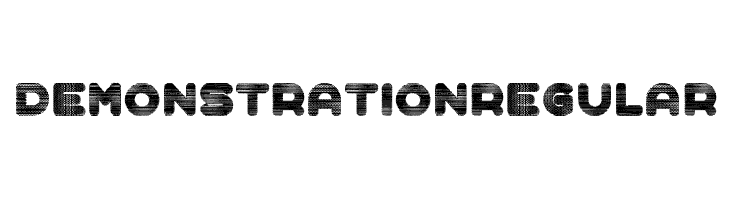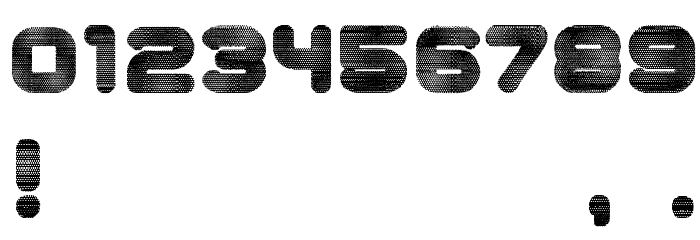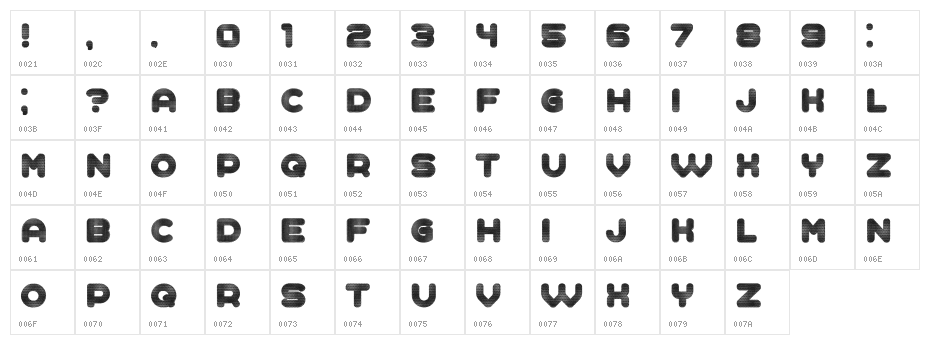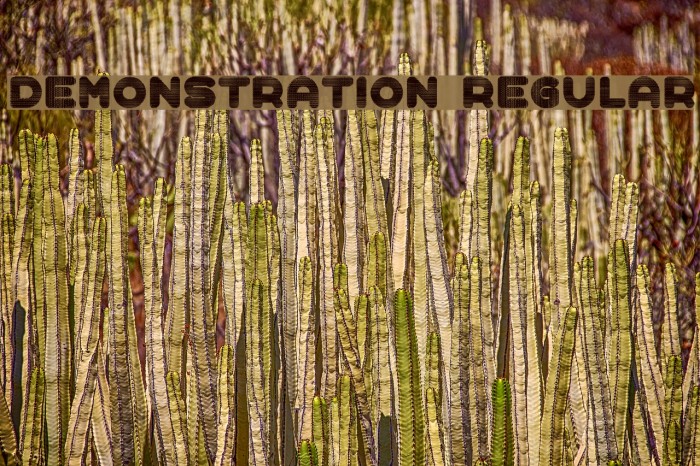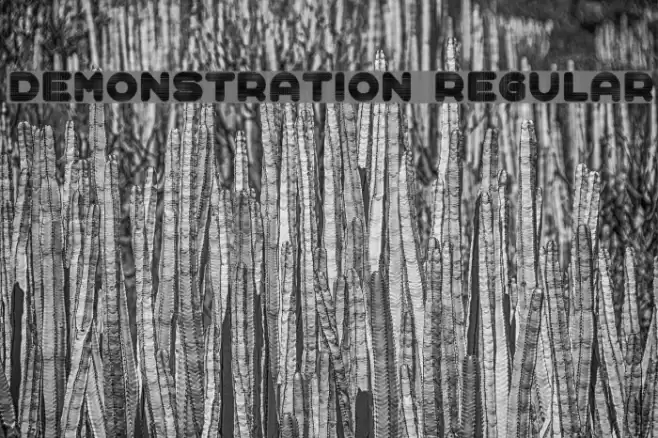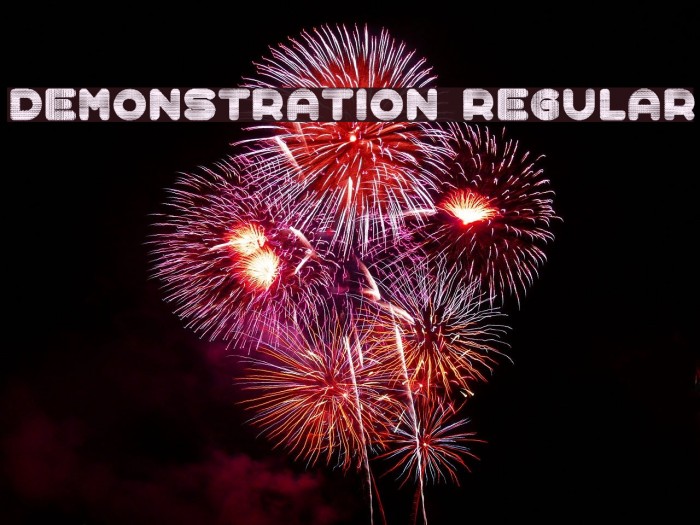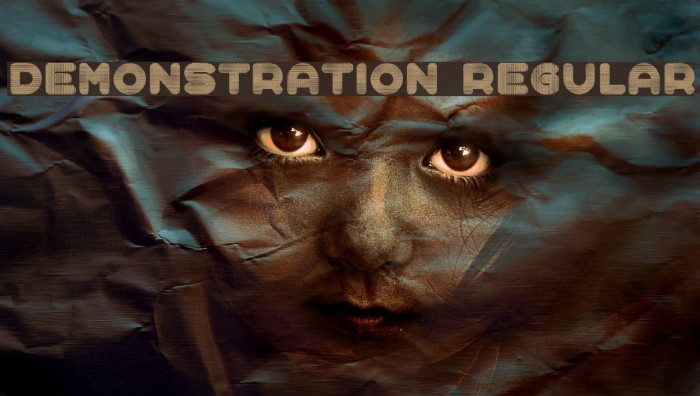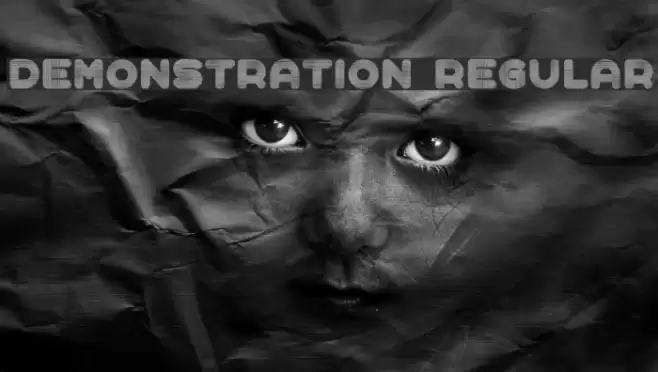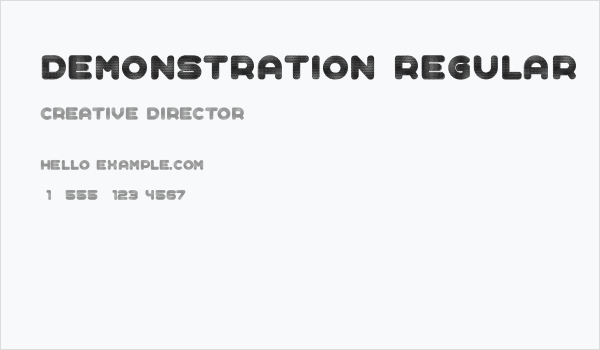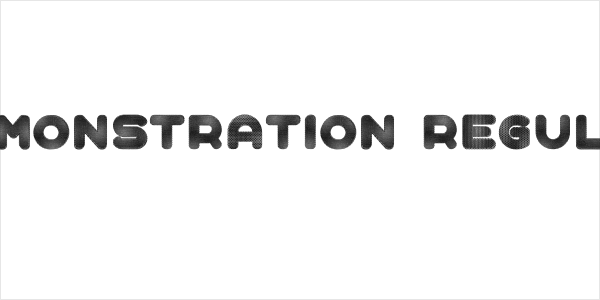
Demonstration Regular Font
Demonstration Regular Description
This font features a bold, rounded design with a unique textured pattern that resembles a halftone effect. The characters are uniformly wide, giving a sense of stability and modernity. The uppercase and lowercase letters maintain a consistent style, with smooth curves and a slightly condensed appearance. The numbers and special characters follow the same design principles, ensuring a cohesive look across all elements. The texture adds a layer of depth and interest, making it suitable for eye-catching designs.
| Proposed Projects | Ideal for posters, branding, and digital artwork where a modern and textured appearance is desired. |